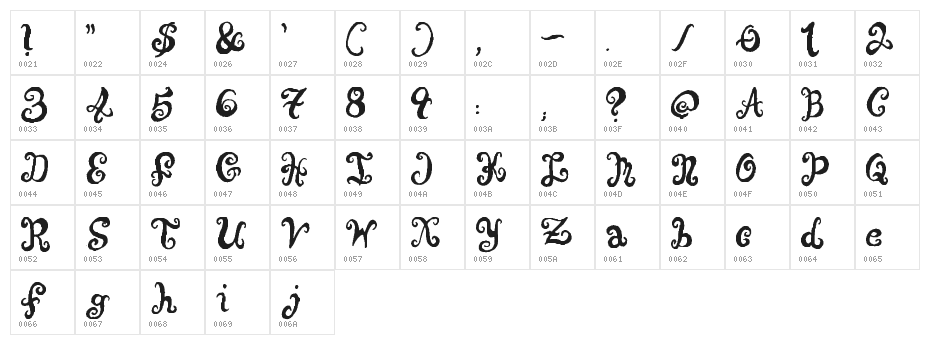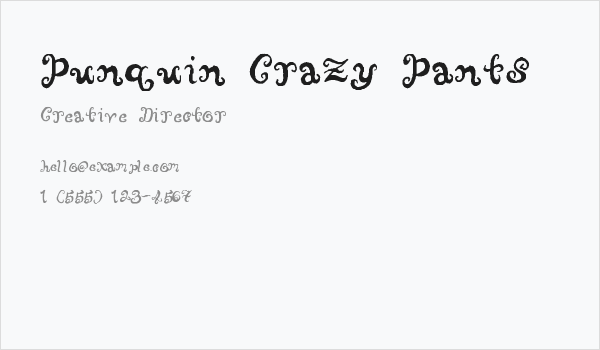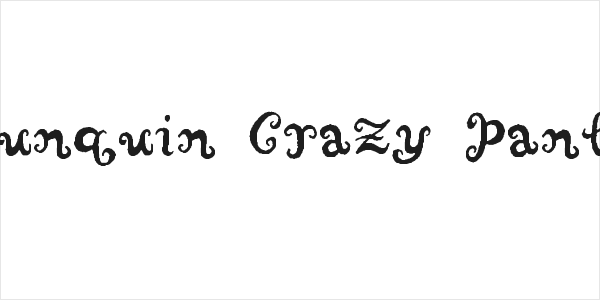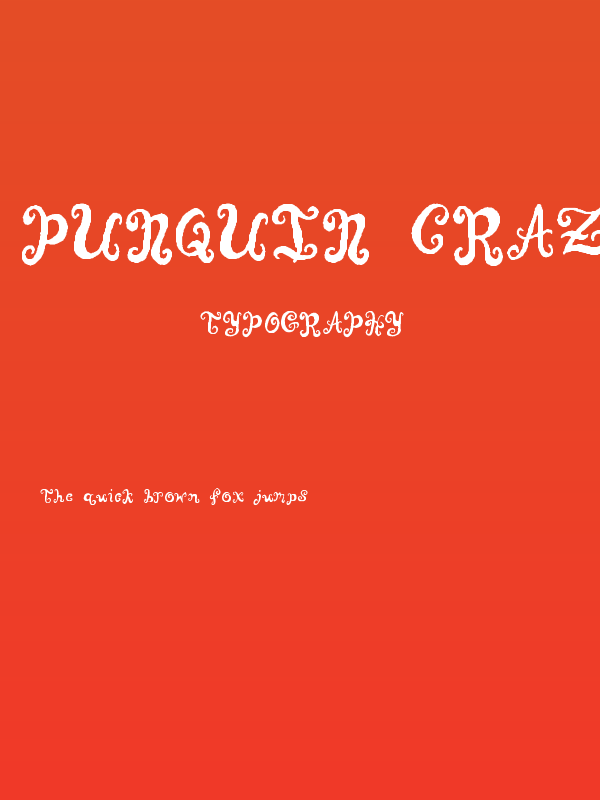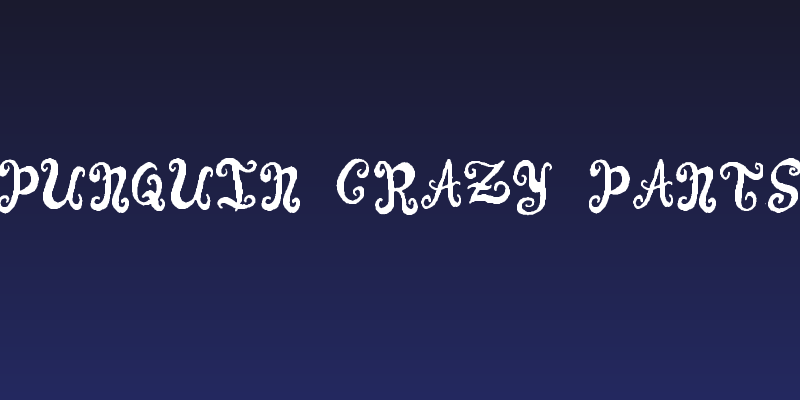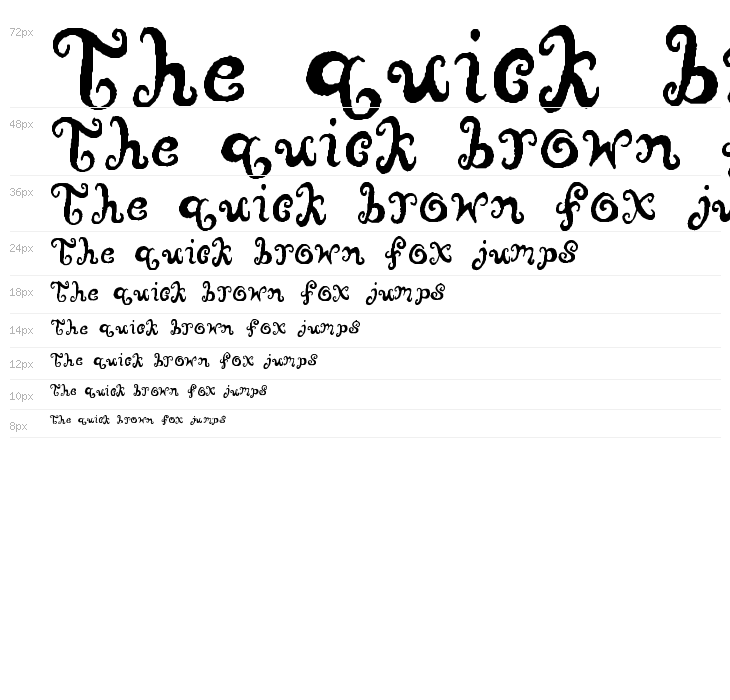
Punquin Crazy Pants Font
Punquin Crazy Pants Description
This font exhibits a whimsical and playful style, characterized by its curly and ornate letterforms. Each character is adorned with unique swirls and embellishments, giving it a lively and dynamic appearance. The font maintains a consistent thickness throughout, with moderate contrast between the strokes. Its decorative nature makes it stand out, capturing attention with its artistic flair. The characters are well-spaced, ensuring readability despite their intricate designs. This font is ideal for projects that require a touch of creativity and fun, such as children's books, playful branding, or festive invitations.
| Proposed Projects | Children's books, playful branding, festive invitations, creative posters. |